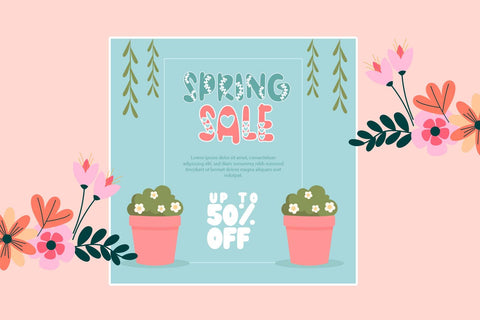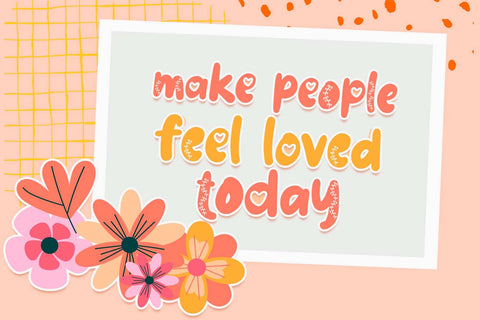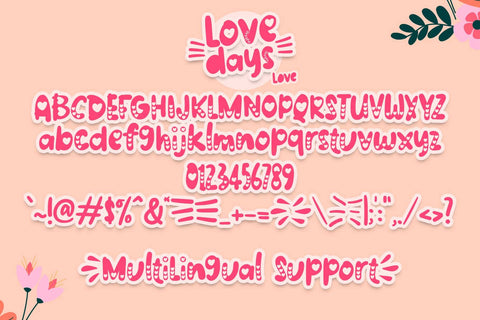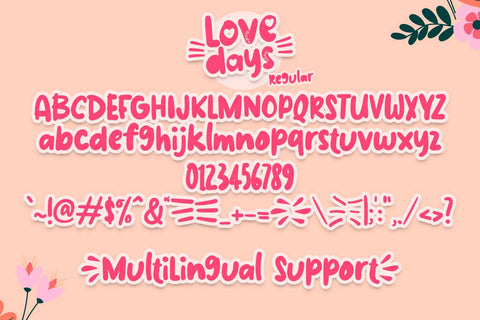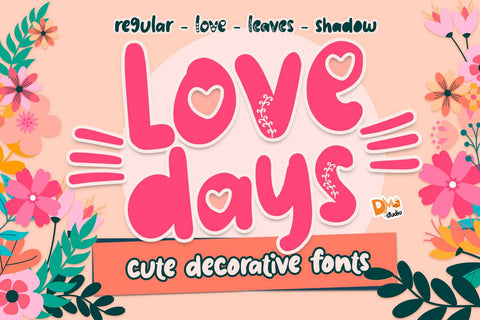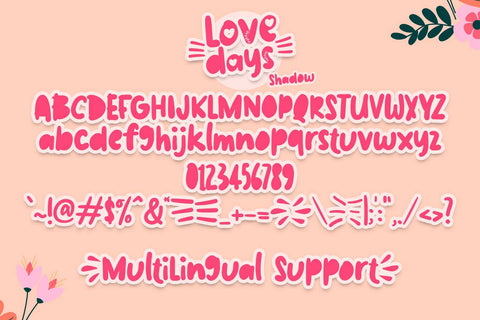
Love Days Font
Love Days Font is a romantic and elegant typeface designed to add a touch of love and sophistication to your projects. With graceful letterforms and a timeless style, this font is perfect for wedding invitations, love letters, branding, and any design where a romantic and charming touch is desired.Features:
- Romantic Elegance: The Love Days Font exudes a romantic and elegant aesthetic, making it ideal for projects that require a touch of love and sophistication.
- Versatile Usage: This font is versatile and suitable for a wide range of applications, including wedding invitations, love notes, branding materials, social media graphics, and more.
Elevate your designs with the timeless and romantic allure of the Love Days Font. Let its graceful letterforms and versatile style bring an extra touch of love and sophistication to your creative endeavors.